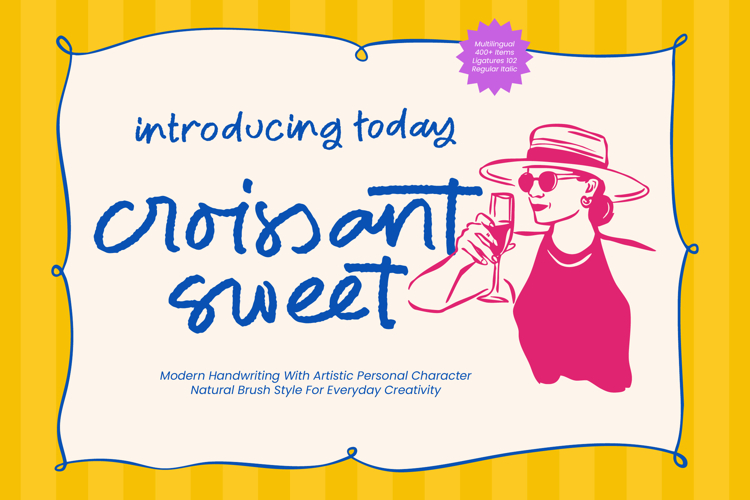
Croissant Sweet - Modern Handwriting
Elevate your creative projects with a touch of authentic, handcrafted charm. Croissant Sweet - Modern Handwriting is a masterfully crafted typeface that captures artistic character. Designed with a natural brush style, it offers a fluid aesthetic that brings life to any digital canvas. This font blends modern handwriting with a sophisticated flair, ensuring your brand message feels both intimate and professional.
Expand your brand's reach across borders with effortless linguistic flexibility. With its extensive multilingual support, Croissant Sweet - Modern Handwriting adapts seamlessly across global markets, making it incredibly versatile for international projects. Featuring over 400+ glyphs and 102 ligatures, this font ensures linguistic accuracy while maintaining its unique . Croissant Sweet - Modern Handwriting delivers a consistent and high-impact visual identity.
Capture the raw energy and effortless flow of hand-rendered typography. The visual appeal of Croissant Sweet - Modern Handwriting lies in its expressive brush strokes and rhythmic movement. It balances the casual nature of a signature with the structure needed for success. By choosing Croissant Sweet - Modern Handwriting, you are investing in a premium design asset that guarantees a bespoke handcrafted look.